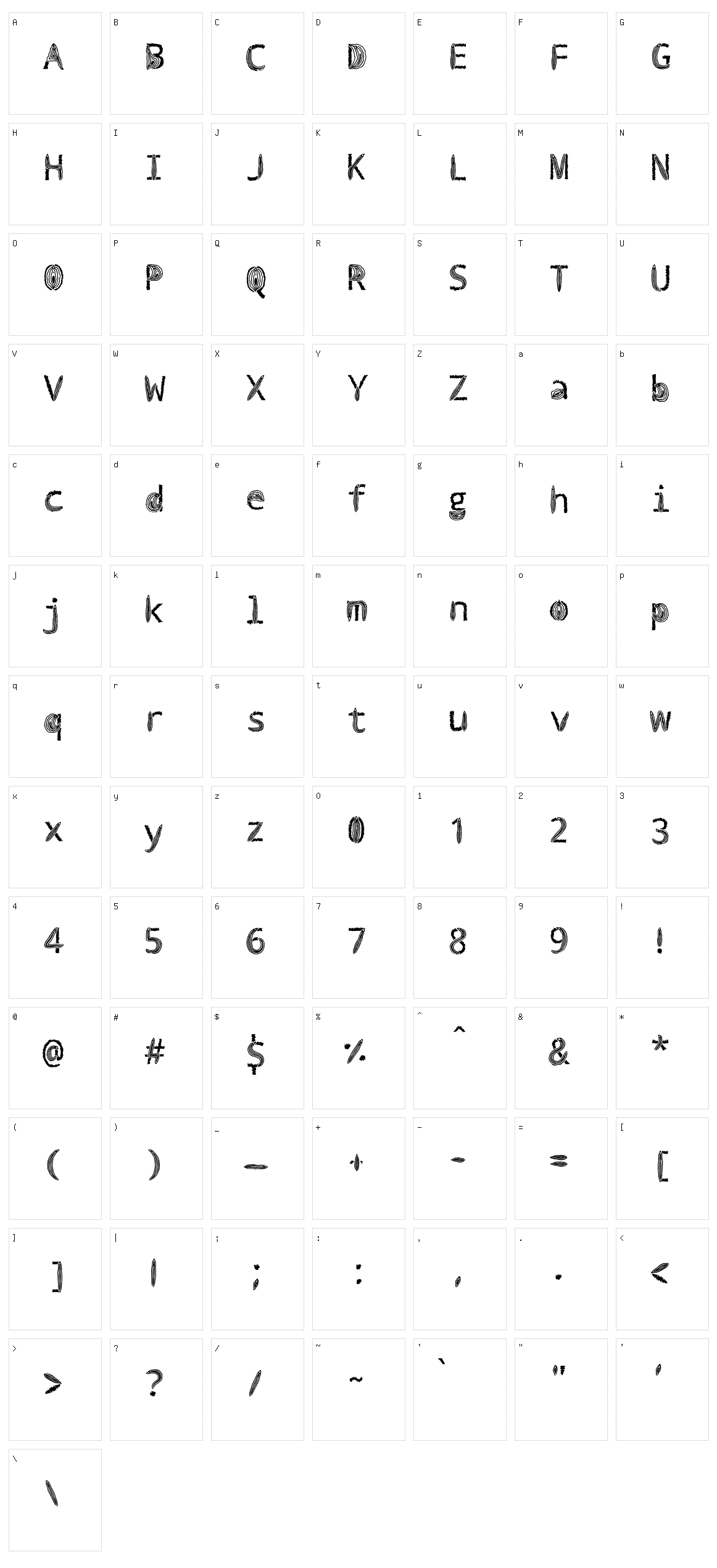
Few month ago, i made a penis typography for fun (https://www.dafont.com/fr/penis-typography.font),
but this kind of typography had already been done all over the internet.
However, after doing some research, I realized that there was no vulva typography.
It was then a mission for me.
Indeed, drawing a penis is simple, everyone has already done it,
but finding a simple and universal way to represent a vulva was not.
Each letter has been redesigned 3 or 4 times to finally obtain an aesthetic, playful and committed result.
Each letter consists of a vulva with its hairs.
This typography proposal is intended to give women a tool to appropriate their own bodies.